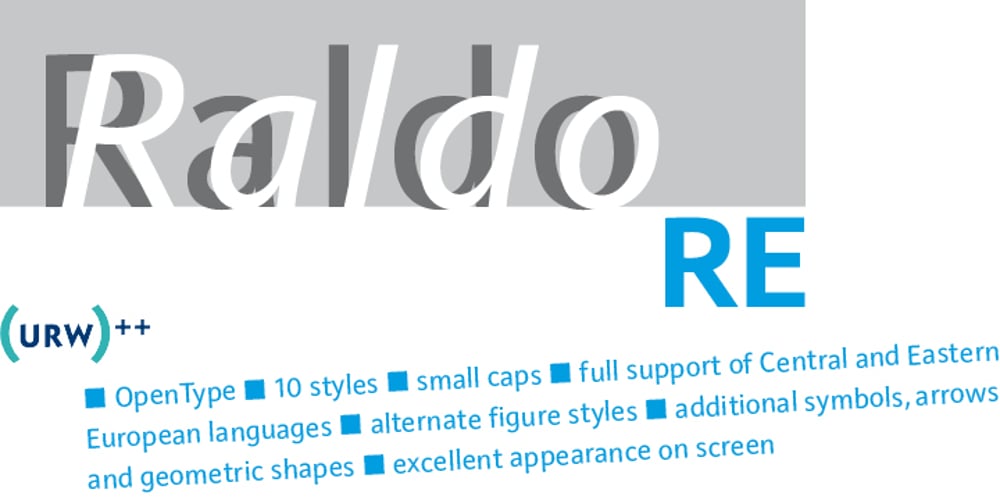
Raldo RE Font Family was designed by Marc Musenberg and published by URW Type Foundry. Raldo RE contains 10 styles and family package options. Quite unusual, Musenberg started his Raldo design with the italic. However, he managed to preserve the temperament and vividness of the italic in the roman without questioning the stability of the individual characters. Raldo is a modern Sans Serif family already quite popular in Germany. The German IGEPA group chose Raldo as corporate typeface family. Now, Marc Musenberg redesigned and extended his Raldo typeface family. The new Raldo RE Pro comprises 10 styles, 5 roman and 5 corresponding italics. All fonts now include the complete Latin character set plus fractions, different sets of figures and fractions as well as small caps and small caps figures for Raldo RE Pro Text, Regular, Semibold and Bold. Raldo RE Pro has been chosen to be part of the URW++ SelecType.